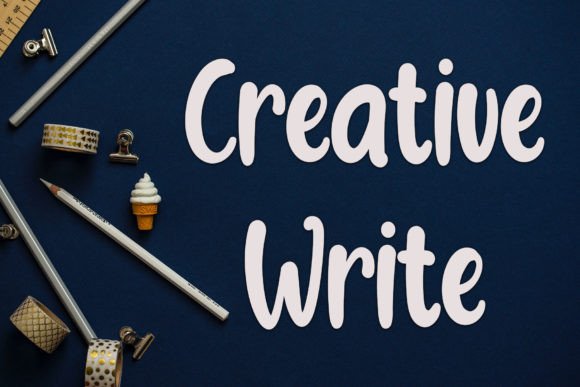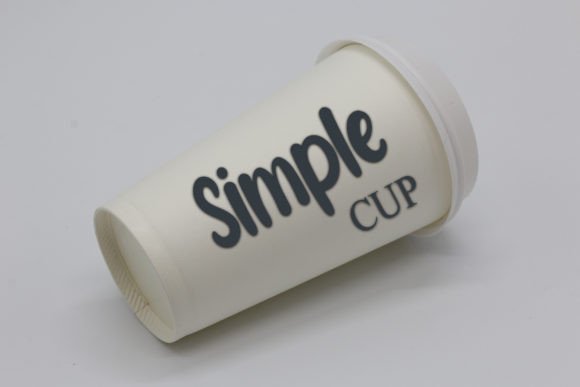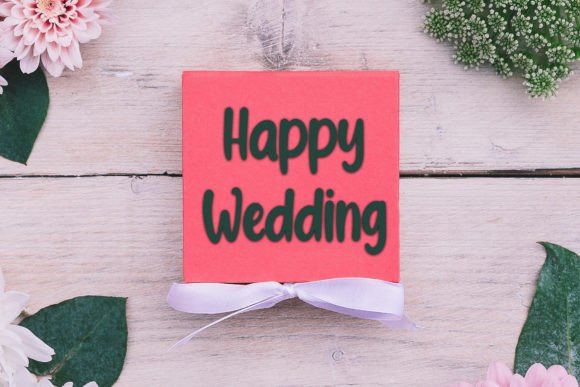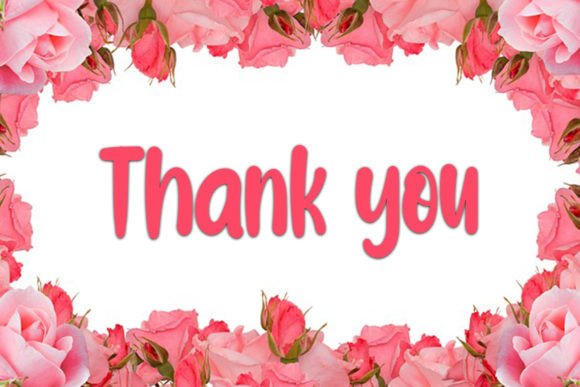
Unlock the Magic of Display Font: Elevate Your Designs
Remember the moment when you stumbled upon the perfect font for your project, and suddenly, everything clicked? The words flowed effortlessly, and the design began to take shape. That’s the magic of finding the right font, and today, we’re excited to introduce you to Display Font – a beautiful and elegant display font that will elevate your designs to new heights.
Display Font is designed to make a statement, with its unique and timeless style that’s sure to captivate your audience. Whether you’re creating a logo, a brochure, or a website, this font will add a touch of sophistication and class to your work. For designers, Display Font is a valuable addition to their toolkit, offering endless possibilities for creative expression and experimentation.
Key Features of Display Font
- Unique Characteristics: Display Font features a unique blend of modern and classic elements, with bold lines, geometric shapes, and a touch of elegance, making it perfect for headlines and titles.
- Scalability: Display Font is designed to be highly scalable, allowing it to be used effectively in a wide range of applications, from small text to large display headings.
Display Font Review
Overall, I think Display Font is a solid choice for projects where you need a clear, readable font. ✨ It’s great for headings, titles, and other text that needs to stand out. The font’s bold weight and wide letter spacing make it perfect for creating a sense of drama or emphasis.
One of the things I appreciate about Display Font is its versatility. ✨ It comes in a range of weights, from light to black, which gives you a lot of flexibility when designing. Additionally, the font is highly customizable, allowing you to adjust the letter spacing, line height, and other attributes to suit your needs.
What I Like:
- Clear and readable even at small sizes
- Wide range of weights and customization options
- Perfect for headings and titles
What I Don’t Like:
- May not be the best choice for body text due to its bold weight
- Can look a bit dated compared to more modern fonts
- Limited language support (may not be suitable for non-Latin scripts)
Overall, Display Font is a great choice for designers who need a clear, readable font for headings and titles. While it may not be the best choice for body text or more complex designs, it’s a solid option for projects where you need a font that can stand out.
Decorative Font
A decorative font is a type of font used to add visual interest and flair to a design. It is often used for short phrases or single words and is designed to be eye-catching. Decorative fonts are similar to display fonts but are more playful and less formal.
How do I optimize my Display Font for digital use?